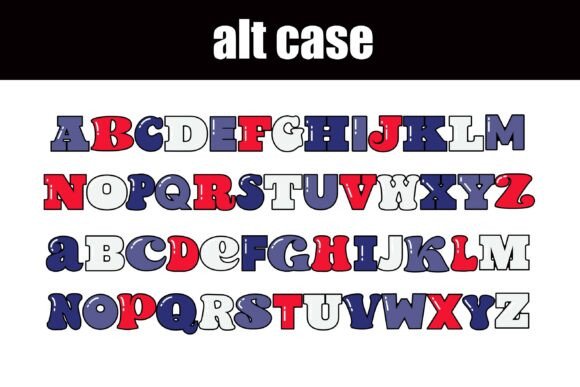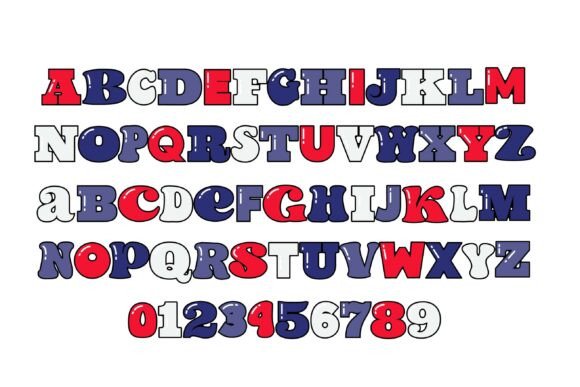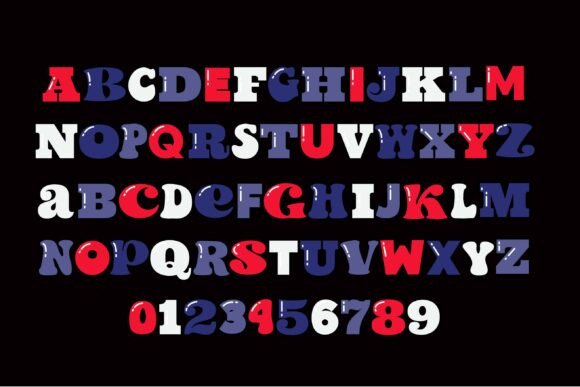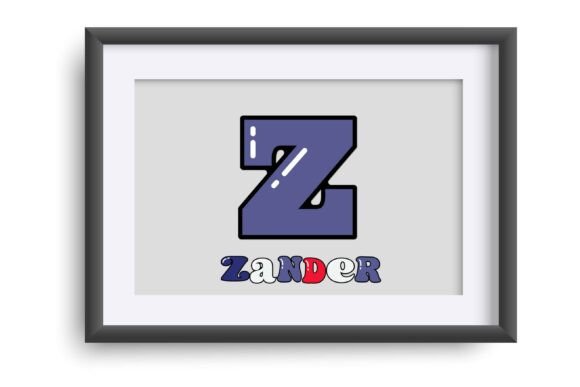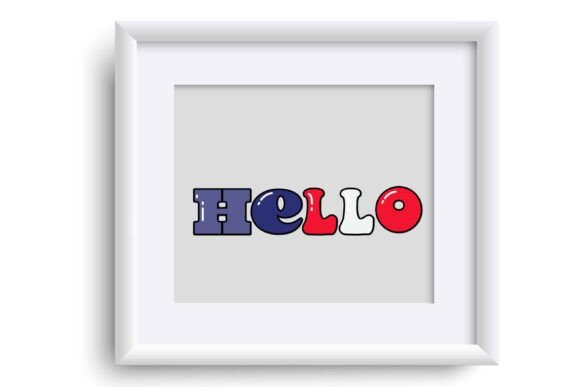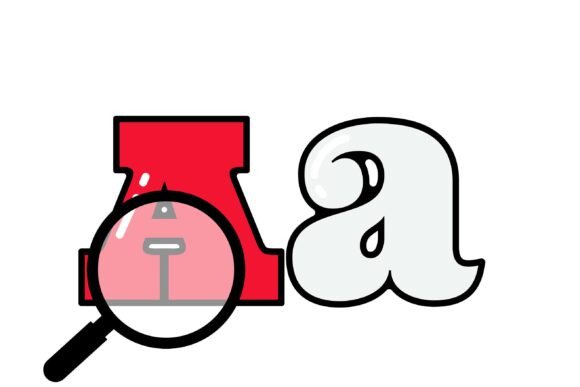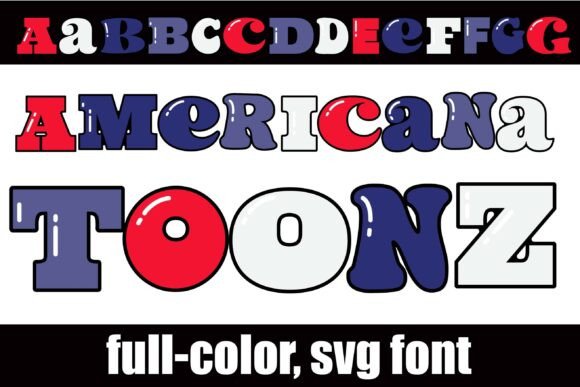
Introducing Americana Toonz Font: A Whimsical Full-Color Font for Designers and Crafters
Are you looking for a unique and playful font to add a touch of personality to your designs? Look no further than the Americana Toonz Font, a full-color font that features a whimsical mix of lettering in American colors. This exciting font is perfect for designers and crafters who want to create eye-catching and engaging projects.
What Makes Americana Toonz Font So Special?
The Americana Toonz Font is a full-color OpenType font that features a range of colors and styles to choose from. This font is perfect for creating simple text logos, complex designs, and everything in between. With its whimsical mix of lettering in American colors, this font is sure to add a touch of fun and personality to your designs.
Alternate Colorings and Glyph Map Access
One of the best features of the Americana Toonz Font is its alternate coloring system. Each letter has an alternate coloring that can be accessed through your system or Silhouette’s glyph map. This means that you can easily switch between different colors and styles to create a unique look for your designs.
Benefits of Using Full-Color SVG Fonts
Full-color SVG fonts offer a range of benefits for designers and crafters. These include:
- Added personality: Full-color SVG fonts allow you to add a touch of personality to your designs, making them stand out from the crowd.
- Increased creativity: With a range of colors and styles to choose from, full-color SVG fonts give you the freedom to be creative and experiment with different designs.
Tips for Using Americana Toonz Font
Here are a few tips for getting the most out of the Americana Toonz Font:
- Experiment with different colors: With a range of colors to choose from, don’t be afraid to experiment and try out different combinations.
- Use it for titles and headings: The Americana Toonz Font is perfect for titles and headings, adding a touch of personality to your designs.
- Pair it with other fonts: Try pairing the Americana Toonz Font with other fonts to create a unique and eye-catching design.
The Americana Toonz Font is a fun and playful full-color font that’s perfect for designers and crafters. With its whimsical mix of lettering in American colors, alternate coloring system, and ease of use, this font is sure to add a touch of personality to your designs. Whether you’re creating simple text logos or complex designs, the Americana Toonz Font is a great choice.